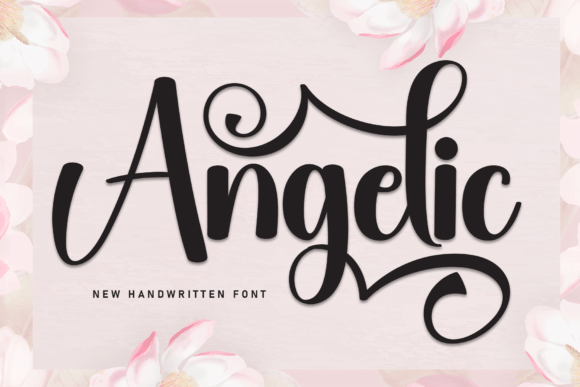
When Words Become Art
Have you ever found yourself lost in a world of scribbles and doodles, only to stumble upon a beautiful phrase that sparks an entire creative journey? This is the magic that happens when words become art. For designers and artists, the quest for the perfect font can be a never-ending adventure. But what if we told you that we’ve found the perfect companion for your creative escapades?
Enter the Angelic Font, a sweet and friendly handwritten font that’s as versatile as it is charming. This natural and unique style makes it an ideal choice for a wide range of designs, limited only by your imagination. Whether you’re crafting a romantic invitation, a children’s book, or a brand identity, the Angelic Font is sure to add a touch of warmth and personality to your work.
Key Features of Angelic Font
- Font Family: A high-quality, elegant script font with a touch of sophistication and romance.
- Character Set: Includes a wide range of characters, including uppercase and lowercase letters, numbers, and punctuation marks.
- Unique Characteristics: Features a flowing, cursive design with subtle flourishes and ornate details, making it perfect for wedding invitations, wedding stationery, and other romantic designs.
Designer Review: Angelic Font
I recently had the chance to work with the Angelic Font, and here’s my honest take on it.
- The Angelic Font has a unique, elegant feel to it. It’s perfect for designs that need a touch of sophistication.
- The font is highly legible, even at smaller sizes, making it ideal for body text or headings.
- The font’s weight and line spacing are well-balanced, giving it a polished look.
- The Angelic Font can be a bit too ornate for some designs, which may detract from the overall message.
- The font lacks a bold weight option, which can limit its use in certain contexts.
- The font may not be as versatile as some other options, making it less suitable for projects with a wide range of design styles.
The Angelic Font is a solid choice for designs that require a touch of elegance and sophistication. While it may have some limitations, it’s a great option for projects where you want to convey a sense of refinement and luxury. Just be mindful of its potential drawbacks and choose it wisely.
Angelic Font is ideal for creating elegant and sophisticated designs. Some common use cases include:
– Luxury branding and marketing materials
– High-end product packaging and labels
– Elegant website typography